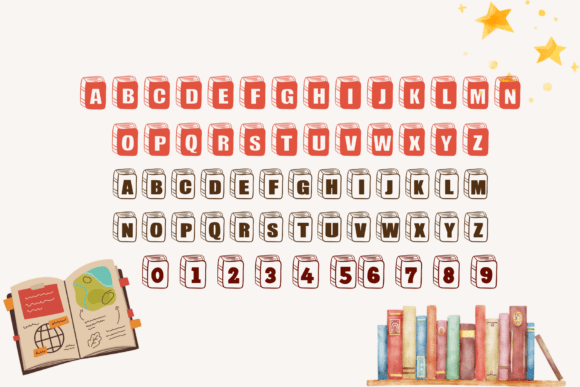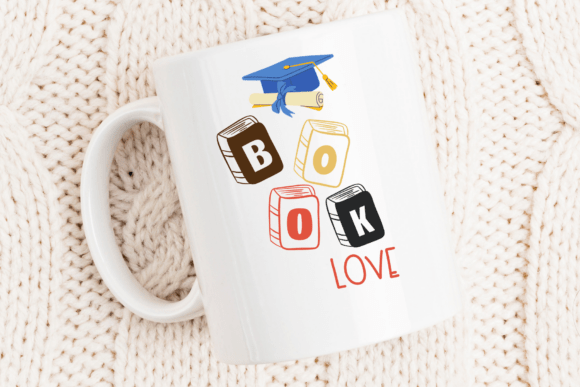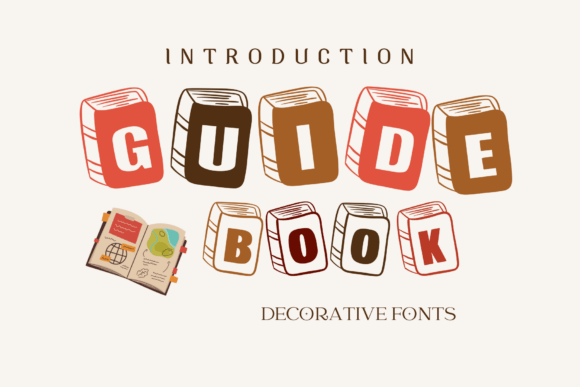
Introducing Guidebook Font: A Charming and Playful Decorative Font for Storytellers
Are you a designer, crafty enthusiast, or educator looking for a unique and engaging font to bring your projects to life? Look no further than Guidebook Font, a delightful and whimsical decorative font that’s sure to captivate your audience. This charming typeface is designed to resemble a classic illustrated book cover, where each letter is creatively framed inside a miniature book cover, complete with intricate details and colorful illustrations.
Perfect for Educational Projects and Kids’ Activities
Guidebook Font is an excellent choice for educational projects, kids’ activities, and learning materials. Its playful and bookish design makes it an ideal fit for:
• Children’s books and storytime materials
• Educational posters, worksheets, and activity sheets
• Kids’ party invitations and themed decorations
• Learning blogs and educational websites
With Guidebook Font, you can add a touch of magic to your educational projects and make learning more fun and engaging for kids.
Travel Journals and Storytelling Themes
But Guidebook Font is not just limited to educational projects. Its charming design also makes it perfect for:
• Travel journals and scrapbooking
• Storytelling themes and book clubs
• Library promotions and book fairs
• Personalized stationery and greeting cards
Whether you’re a travel enthusiast, a bookworm, or a crafter, Guidebook Font is the perfect choice to add a personal touch to your projects.
Key Features of Guidebook Font
So, what makes Guidebook Font so special? Here are some of its key features:
• Unique and playful design: Each letter is creatively framed inside an illustrated book cover, complete with intricate details and colorful illustrations.
• High-quality and versatile: Guidebook Font is perfect for a wide range of projects, from digital designs to print materials.
• Easily readable: Despite its decorative nature, Guidebook Font is surprisingly easy to read, making it perfect for body text and headings.
• Fun and engaging: Guidebook Font is sure to captivate your audience and add a touch of whimsy to your projects.
Tips for Using Guidebook Font
Here are some tips for using Guidebook Font in your projects:
• Pair with complementary fonts: Guidebook Font works well with clean and simple fonts, such as Arial, Helvetica, or Open Sans.
• Experiment with colors: Guidebook Font looks great in bright and bold colors, but also try pairing it with pastel shades or monochromatic schemes.
• Add illustrations and graphics: Guidebook Font is perfect for pairing with illustrations, graphics, and other visual elements.
In conclusion, Guidebook Font is a charming and playful decorative font that’s perfect for designers, crafters, and educators looking to add a touch of whimsy to their projects. With its unique and bookish design, Guidebook Font is sure to captivate your audience and bring your projects to life. So why not give it a try and let every word tell a story with this fun and engaging typeface?
Whether you’re working on educational projects, kids’ activities, travel journals, or storytelling themes, Guidebook Font is the perfect choice. So go ahead, get creative, and make your projects stand out with Guidebook Font!